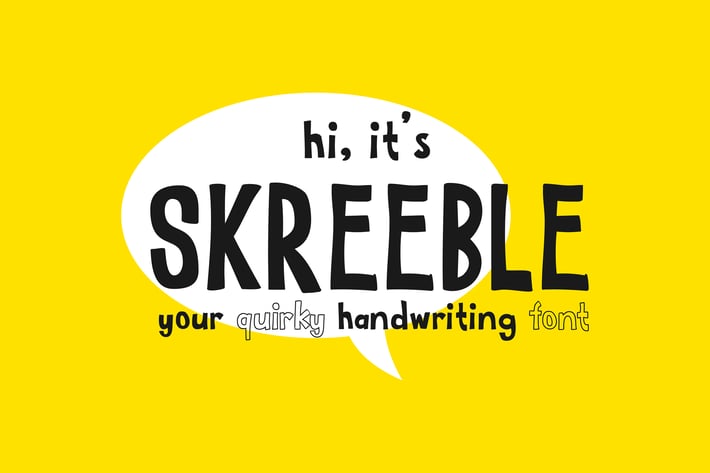
Skreeble - A Fun Sans Serif Font With Quirky Shape
Skreeble - Quirky Font
Looking for a quirky handwriting typeface that jumps right off the page? Skreeble is a bold and playful handwritten display font, packed with thick, cartoon-style strokes and a wildly bouncy baseline. Its fun, irregular rhythm captures the cheerful tone of school notes and classroom doodles, while its expressive weight gives your message a confident shout. Designed for creative chaos with heart, Skreeble thrives in youth-centric designs like children’s books, educational posters, or kid-friendly branding. This font mixes handwritten personality, high contrast, and organic structure to bring joyful vibes to any creative layout.
Whether you're creating playful learning materials, attention-grabbing posters, or a back-to-school campaign, Skreeble delivers authentic, kid-approved charm. Its friendly tone and vibrant presence make it the go-to choice for educators, illustrators, and content creators who want their message to sound like a real voice—loud, warm, and full of character.